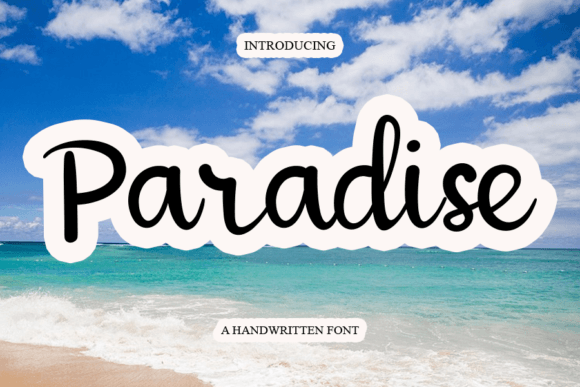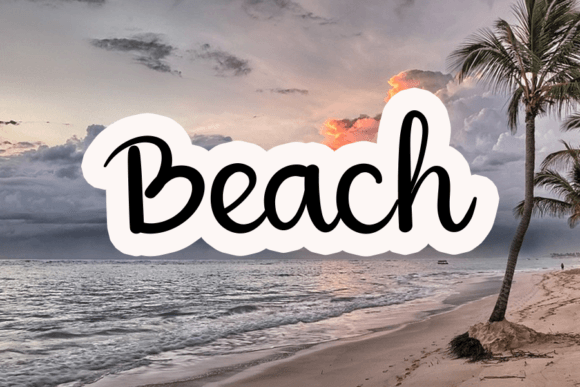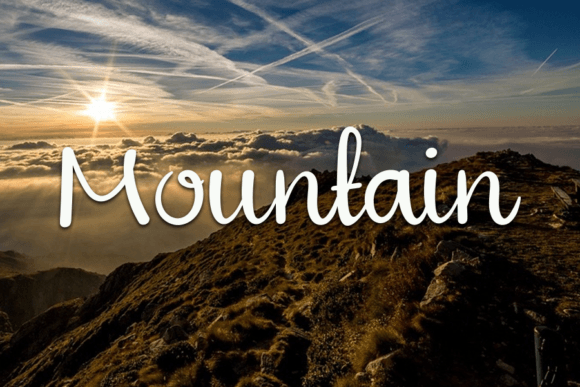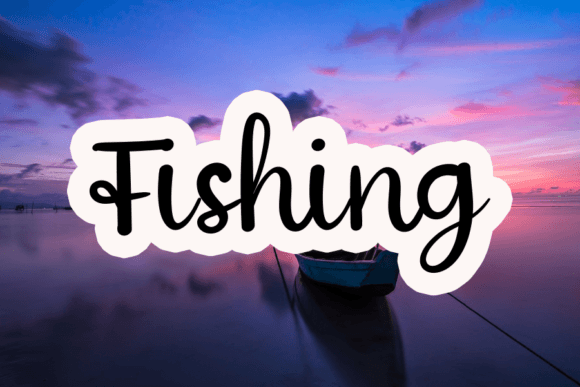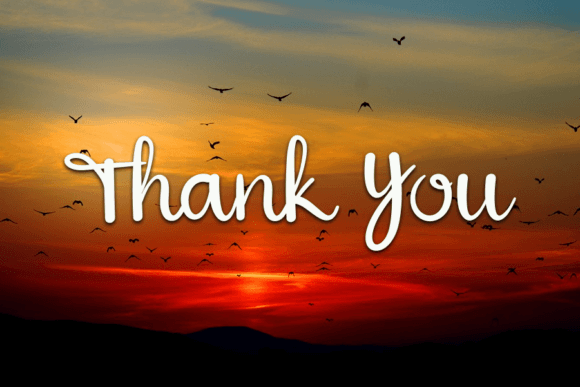
Paradise Font
About Paradise Font
Paradise Font is a fun handwritten script designed to bring creativity and warmth into your projects. Its casual strokes and smooth flow make it approachable and versatile, giving every design a personal, friendly touch. Whether you are creating for print or digital, Paradise Font adapts beautifully to multiple uses.
A Handwritten Font Full of Personality
Handwritten fonts often carry an authentic charm, and Paradise Font is no exception. With its playful curves, this typeface makes every design feel more human and engaging. From handmade crafts to professional layouts, its balance of style and readability ensures your work always stands out.
Perfect Typeface for Crafts and Greeting Cards
Designers searching for a typeface to enhance greeting cards, invitations, or personal stationery will find Paradise Font to be an ideal choice. Its smooth, handwritten flow creates designs that feel unique and heartfelt. Birthday cards, wedding invites, or seasonal messages look more personal when crafted with this playful script.
A Script Typeface for Branding and Digital Use
Businesses can also benefit from the approachable personality of Paradise Font. Its handwritten nature works well in logos, packaging, and product labels. Social media creators can use it for posts, banners, and story graphics to capture attention with a warm, creative vibe. Paired with a clean sans serif, it maintains readability while adding flair.
Flexible for Print and Online Projects
ParadiseFont is suitable across both print and digital platforms. In print, it shines on posters, event materials, and packaging. Online, it enhances presentations, blog graphics, and website banners with ease. Its adaptability makes it a valuable asset in any designer’s toolkit.